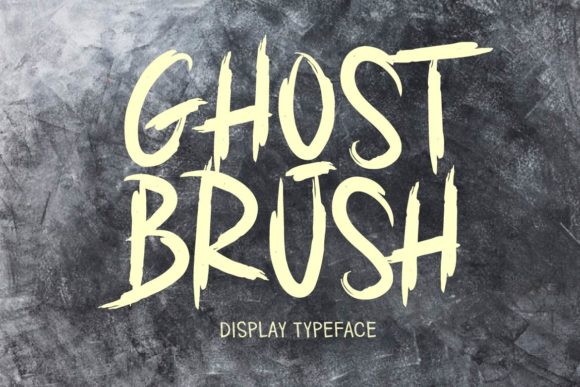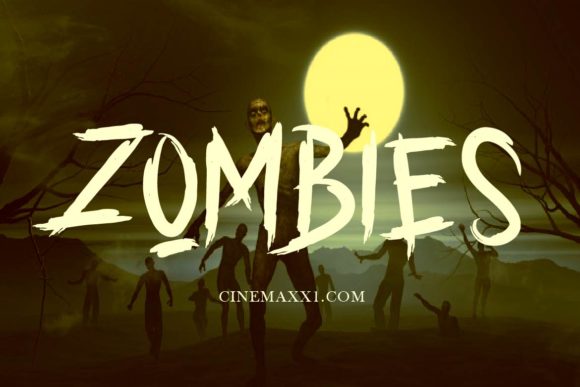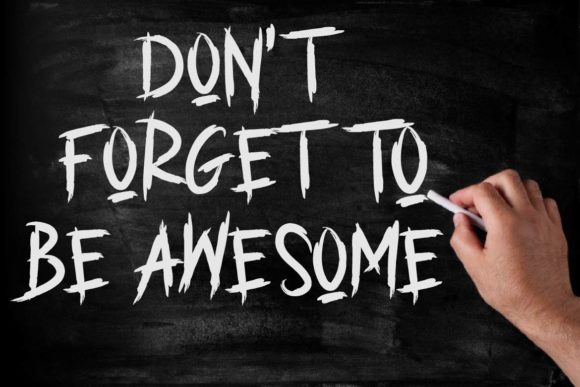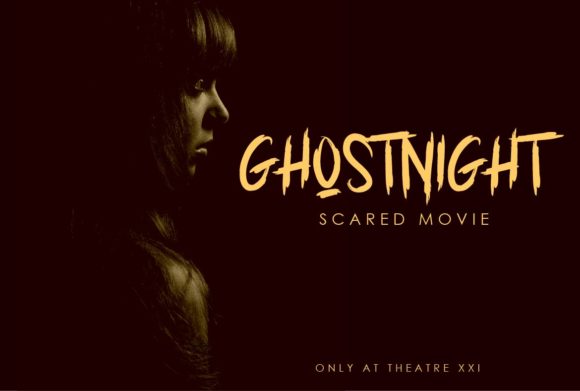
Ghost Brush Font
About the Ghost Brush Font
Get ready to be inspired by Ghost Brush Font, a fresh and dynamic typeface for modern creators. Ghost Brush is a simple and quirky lettered display font. Add this font to your creative ideas and notice how it will make them stand out!
Ghost Brush’s quirky, hand-lettered style shines in headlines, short slogans, and logos where its playful energy can be fully appreciated. It’s ideal for branding projects targeting a younger demographic or those emphasizing a handcrafted, artisanal feel. Avoid using it for body text or lengthy paragraphs; its unique character loses impact at smaller sizes and in extended use.
Pairing Ghost Brush with a clean sans-serif like Open Sans for body copy creates a strong visual contrast, balancing its informality. For a more sophisticated look, consider pairing it with a classic serif like Garamond for supporting text. In designs requiring a touch of elegance, a script font like Pacifico could add a complementary layer of personality.
The font projects a bold, friendly, and slightly unconventional personality—perfect for projects needing a touch of whimsy and character without sacrificing readability in key areas.
Ghost Brush Font Usage Examples
Ghost Brush Font Example